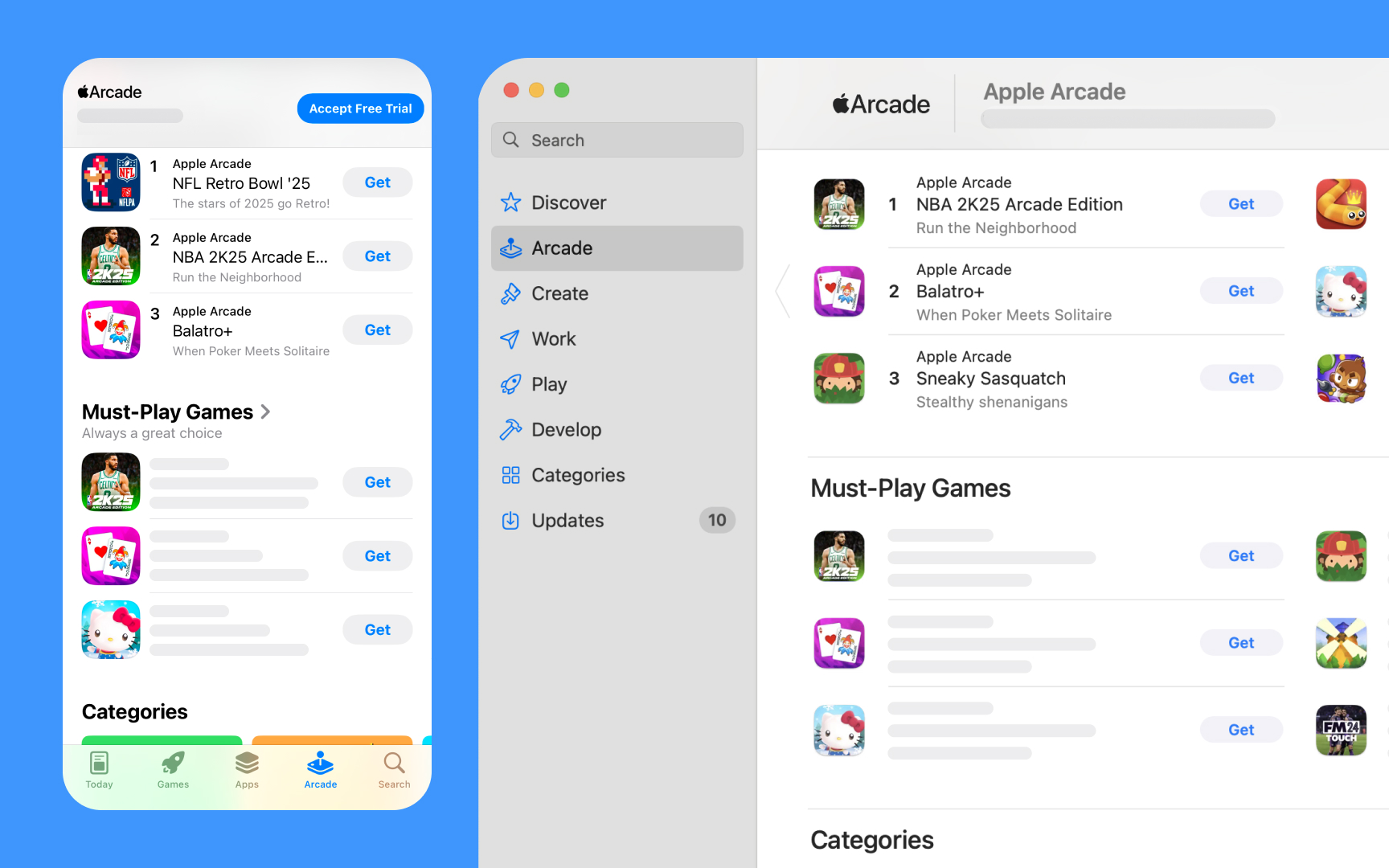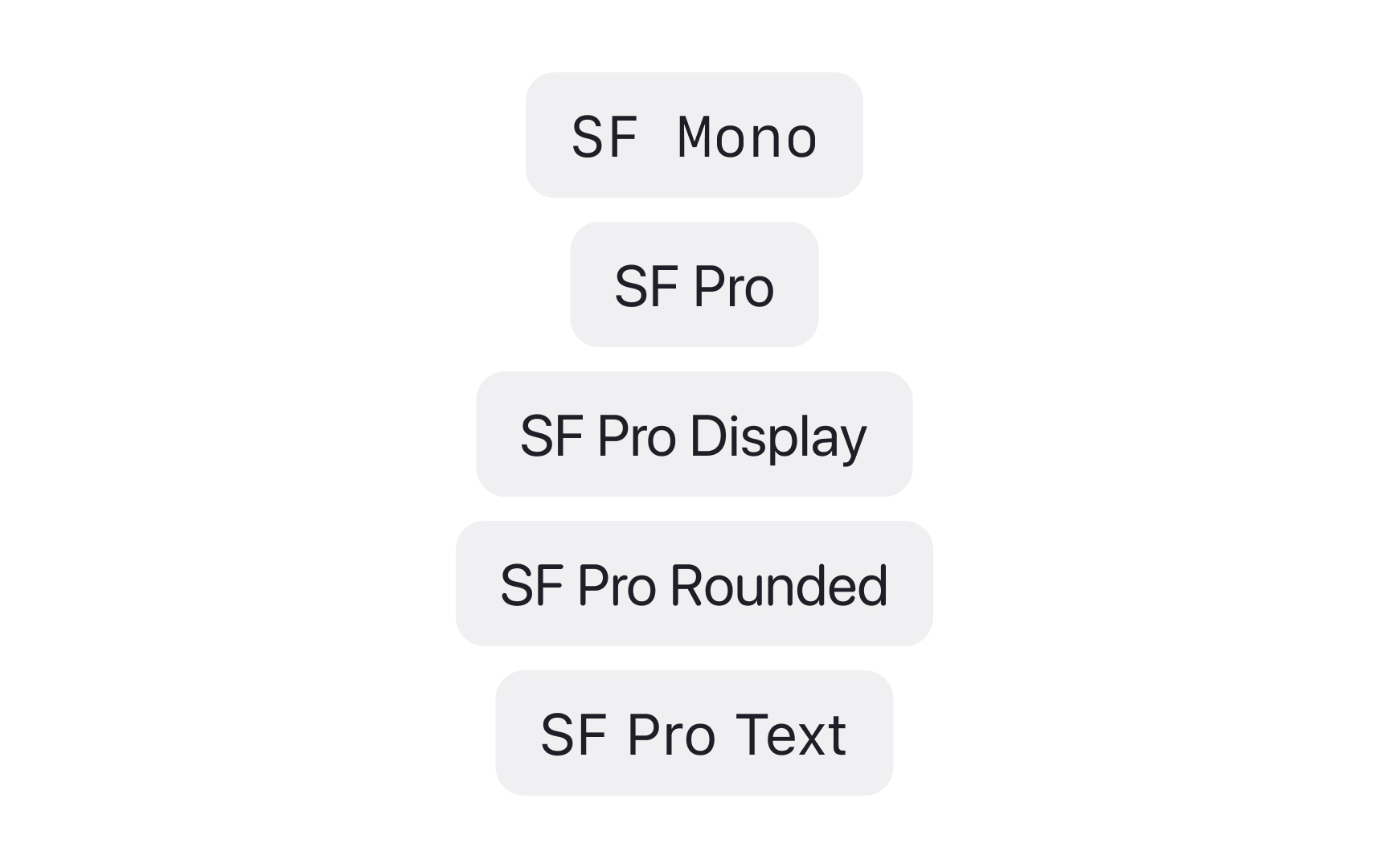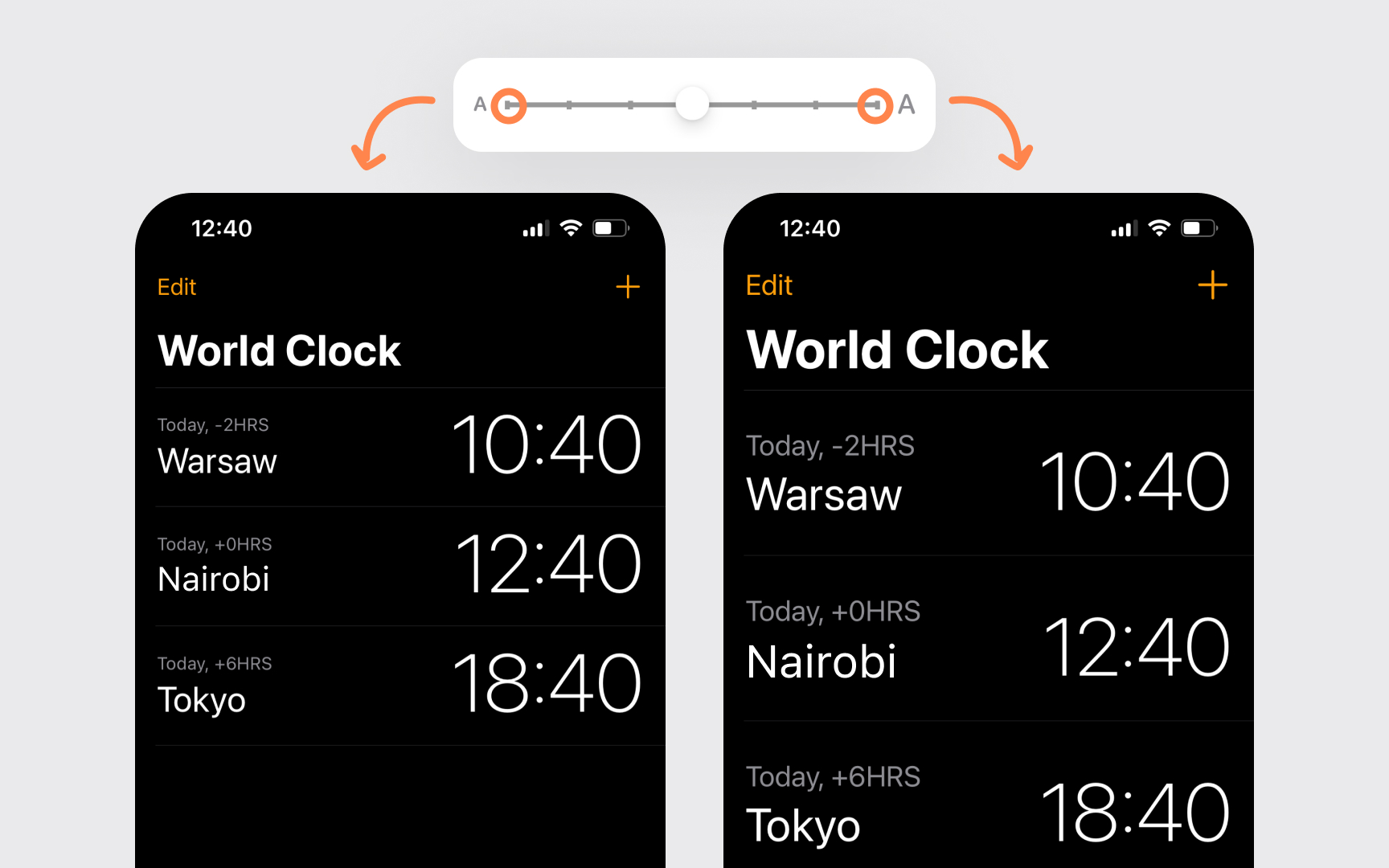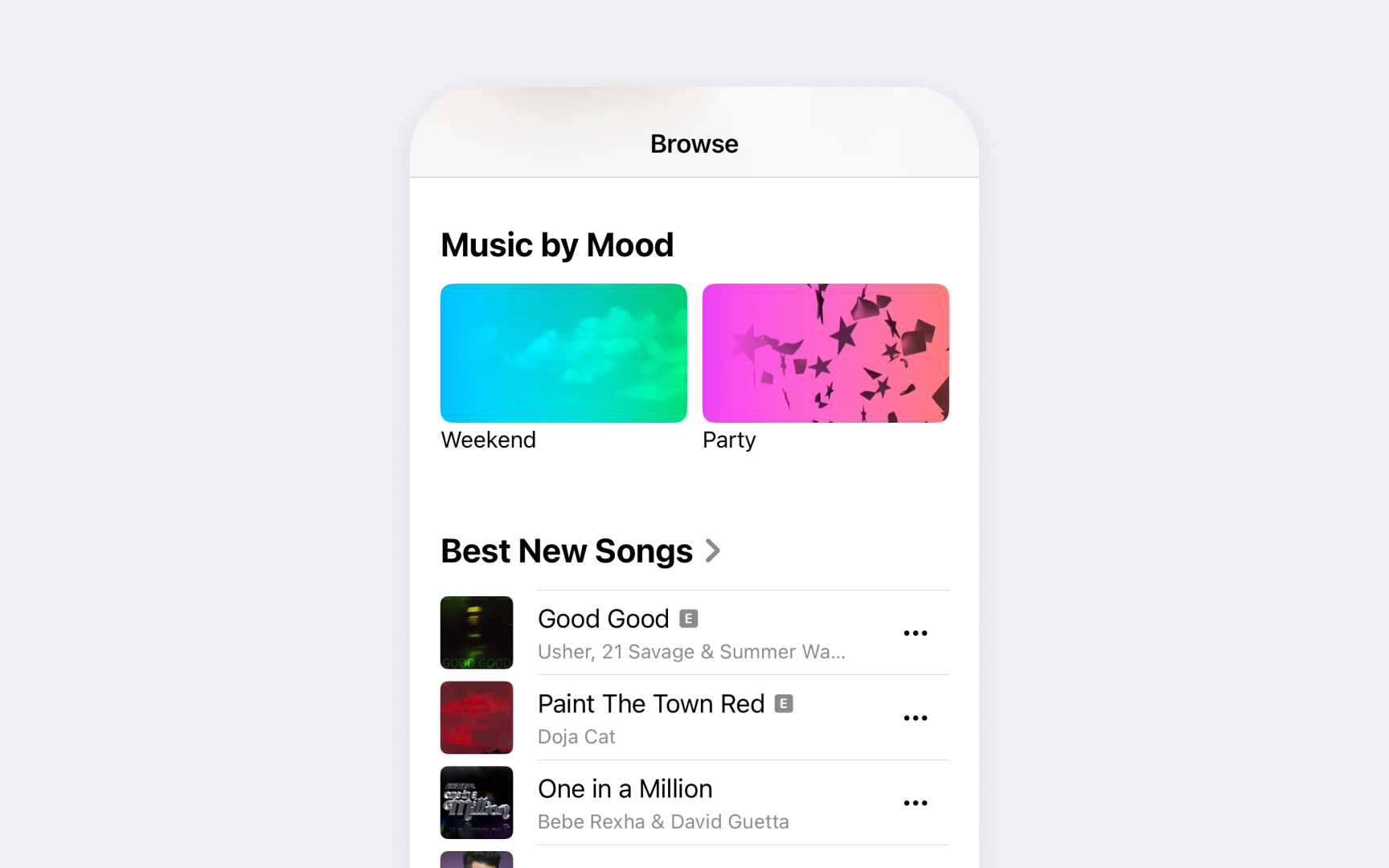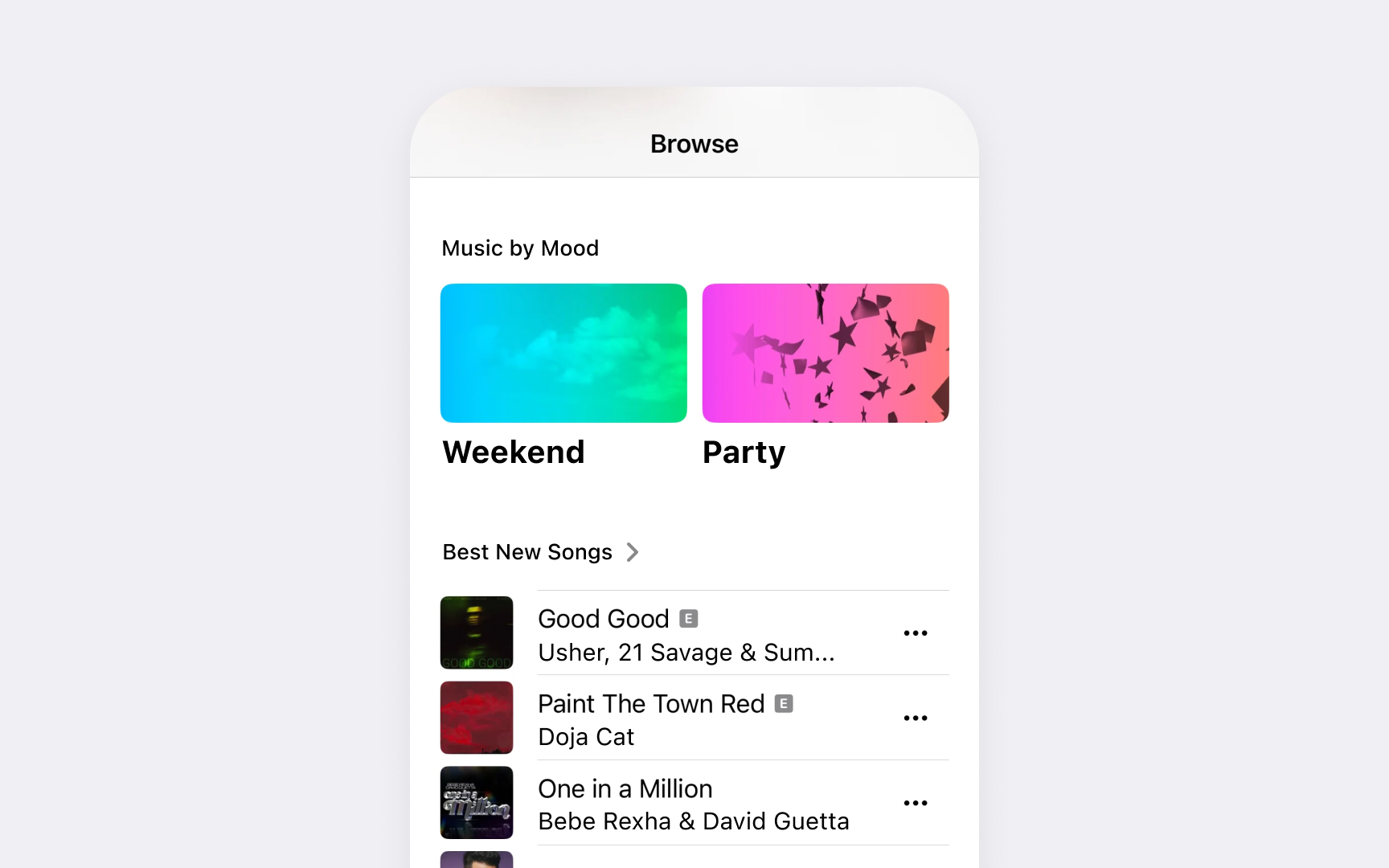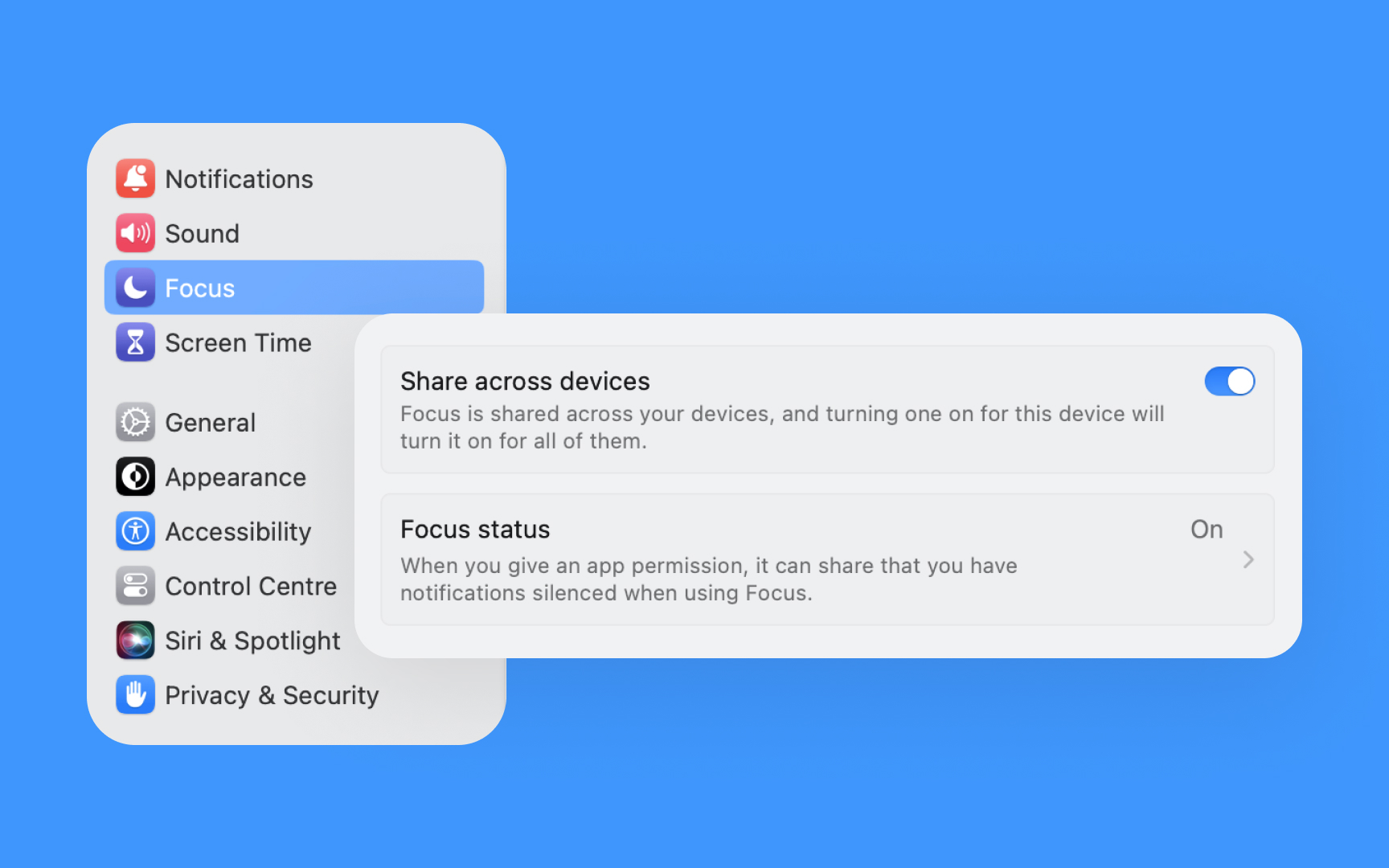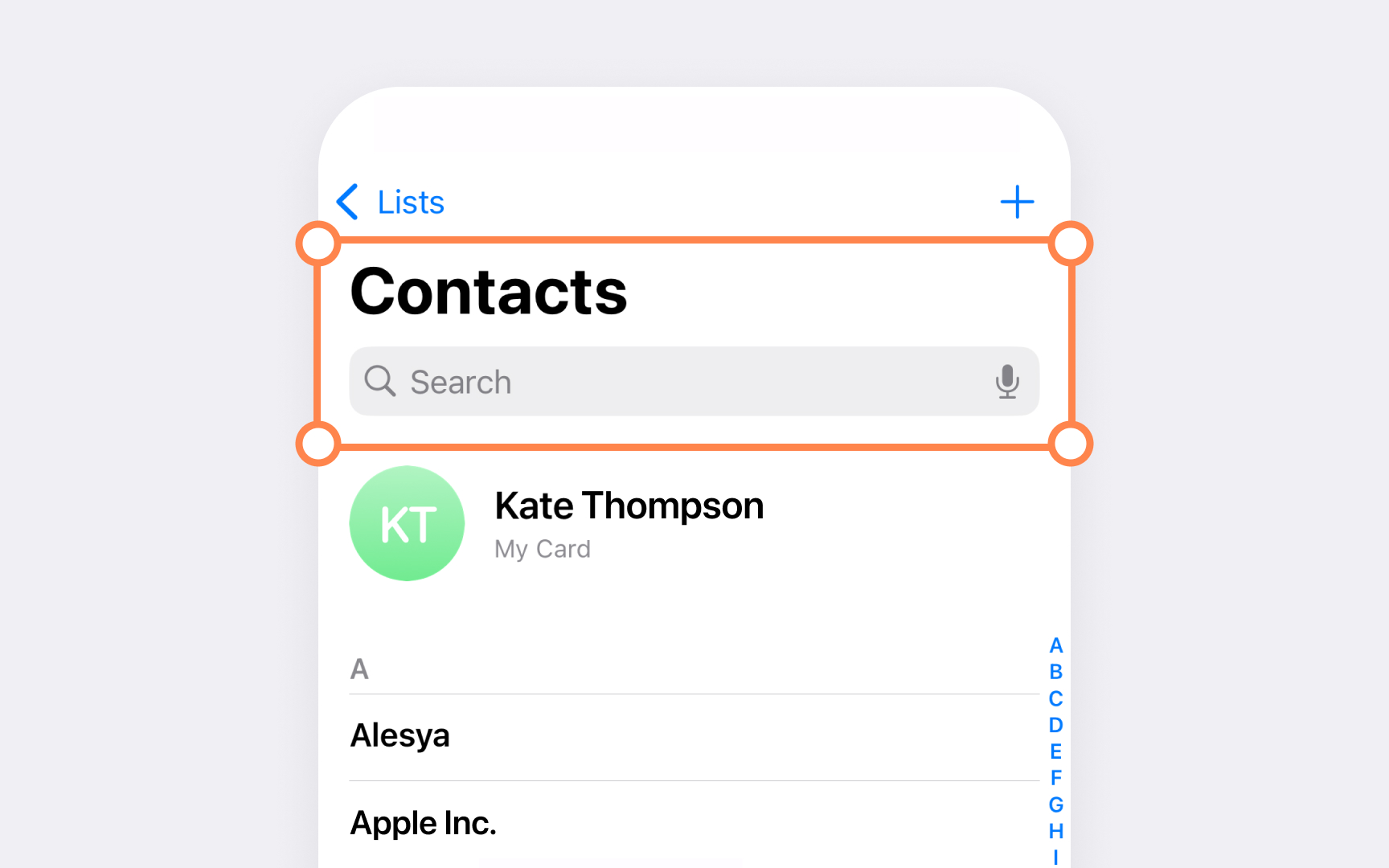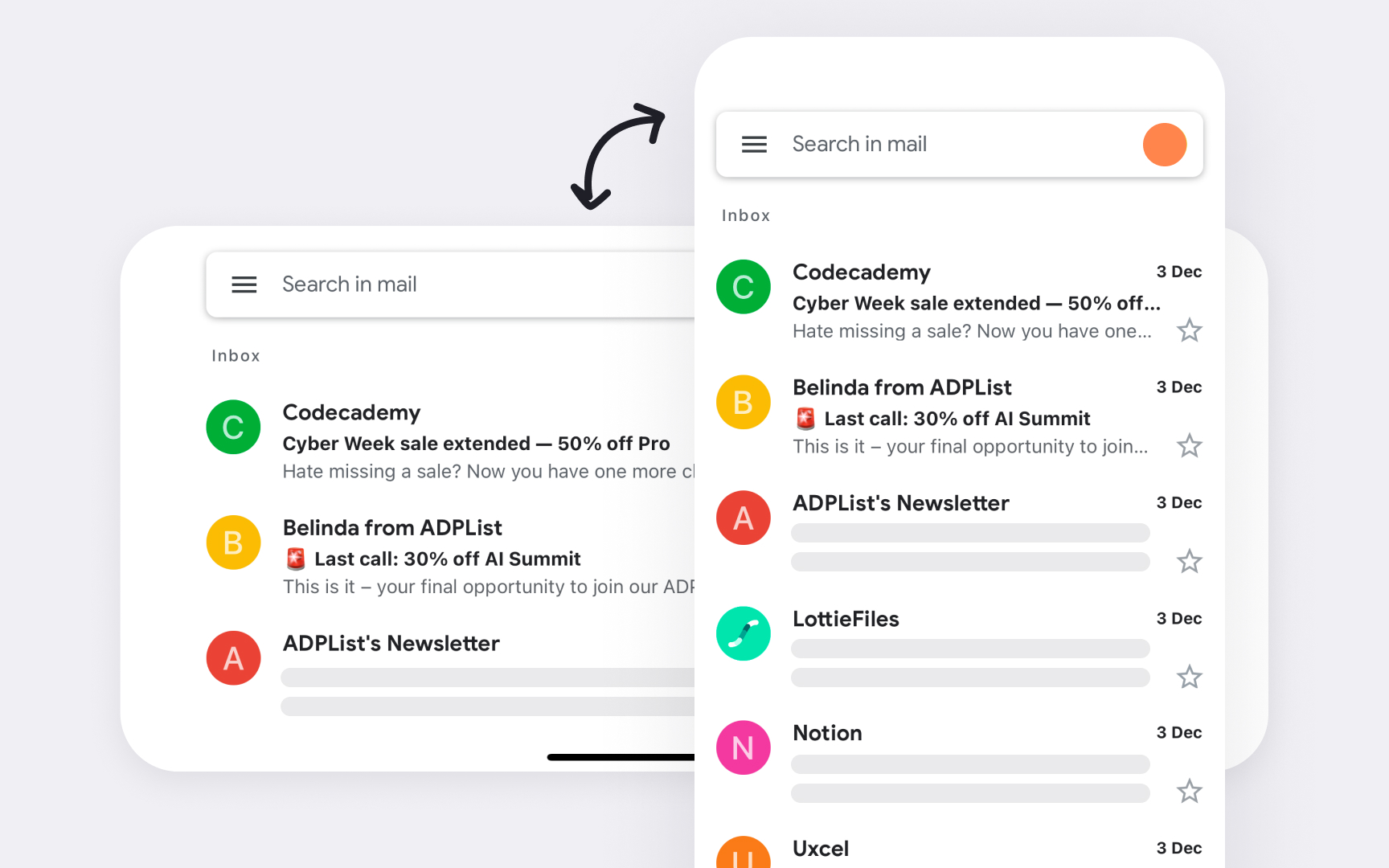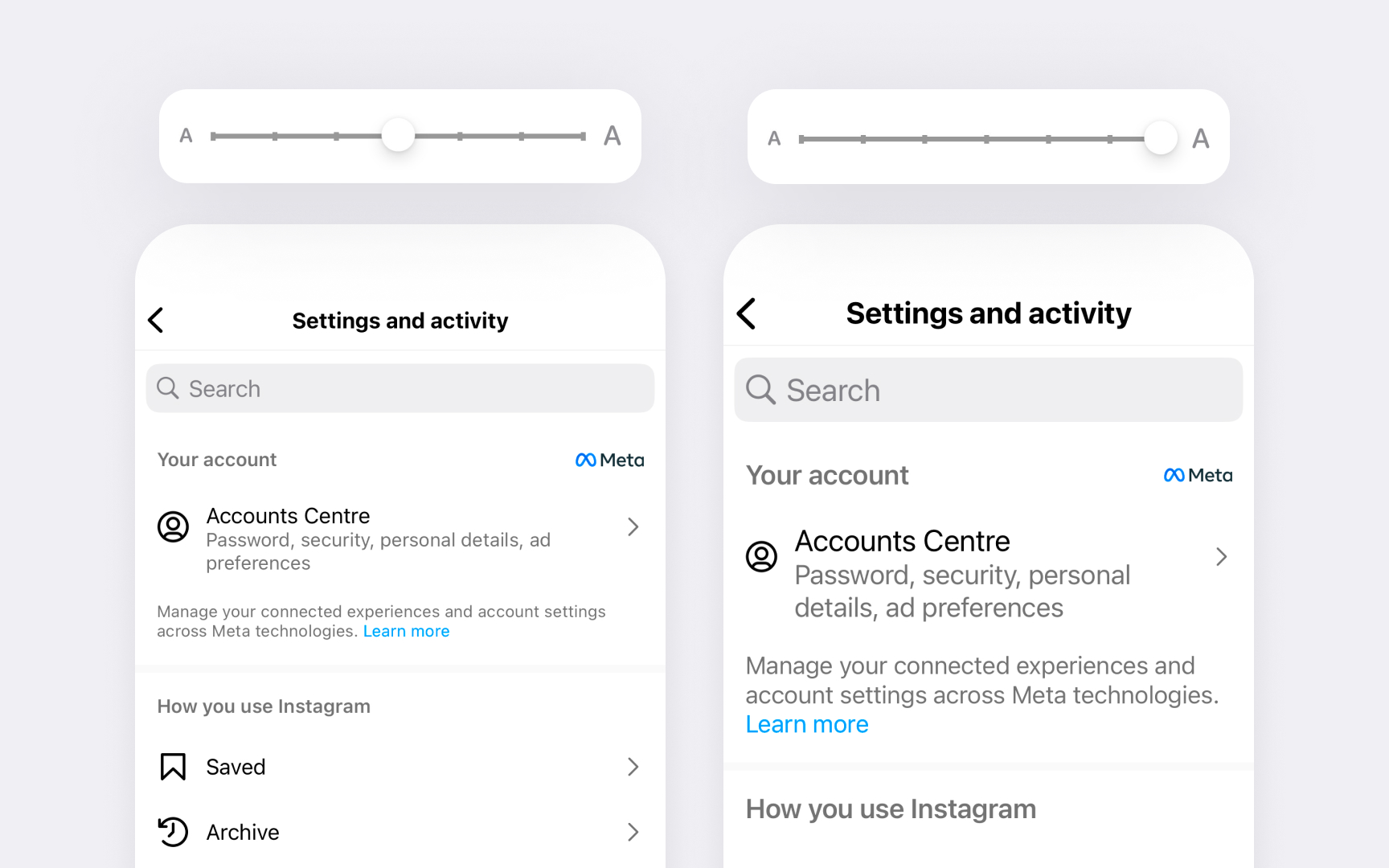
Typography defines the reading experience in Apple interfaces. The San Francisco (SF) font family stands at the center of this experience, bringing more to the table than just good looks. Watch SF fonts at work: they shift their forms to stay readable on an Apple Watch screen, create natural rhythm in apps, and look sharp on large displays. The system takes care of complex typography details on its own, from letter spacing to thickness changes. While each SF font has its own distinct feel, they all speak the same visual language across different interfaces.
Understanding SF typography means having the right tools to guide attention and create clear structure in their work. It helps make smart choices about text size relationships, font weights, and spacing that feel natural in Apple's ecosystem. Knowing when to use specific SF fonts helps emphasize the right information and keep text easy to read. This knowledge helps turn complex content into clear, organized interfaces. SF typography shows how careful attention to small details creates better digital experiences that feel distinctly Apple.
SF font basics
The San Francisco (SF) font family powers text display across Apple platforms — from watchOS to macOS. Each font in this family adapts to different screen sizes while maintaining Apple's signature look and excellent readability.
Each platform has its own set of built-in text styles. For iOS and iPadOS, body text defaults to 14pt Regular, while macOS uses 13pt Regular. Text styles range from large titles (31pt in iOS/iPadOS, 26pt in macOS) down to small captions (11pt in iOS/iPadOS, 10pt in macOS).
Text spacing in SF fonts changes automatically based on size. The tracking values adapt precisely: text at 12pt has no tracking adjustment, smaller sizes get positive tracking for better readability, while 13-20pt sizes receive negative tracking for tighter headlines.
SF fonts include built-in features that improve text display:
- Rounded corners become slightly sharper at small sizes
- Letter shapes adjust to stay clear and readable
- Numbers align perfectly in tables and data
- Punctuation marks adjust their position based on surrounding characters[1]
Font variations
SF fonts include distinct variants designed for different uses. SF Pro serves as the main interface font, while SF Pro Rounded offers a softer look for specific UI moments. SF Mono provides fixed-width characters perfect for code and data display.
Each variant comes with 9 weights from Ultralight to Black. This range helps create contrast and hierarchy without switching font families. The weights work consistently across all SF variants, maintaining visual harmony throughout interfaces.
SF Compact adapts the standard SF design for smaller displays. Its condensed letterforms and tighter spacing help fit more content on watch faces and compact UI elements. SF Pro Display and SF Pro Text optimize letter shapes for different size ranges.
Key attributes of SF variants:
- SF Pro balances neutrality with personality
- SF Compact preserves legibility in tight spaces
- SF Mono aligns numbers and code perfectly
- SF Rounded softens UI without losing clarity
Pro Tip! When mixing SF variants, maintain consistent weights across them. If body text uses Regular weight, use Regular for monospaced code snippets too.
Dynamic sizing
Dynamic Type adjusts text size across Apple interfaces based on users' preferences. This system ensures comfortable reading without breaking layout harmony — from the default size to larger accessibility options.
iOS and iPadOS offer seven standard text sizes and five larger accessibility sizes. This size spectrum ranges from xSmall to xxxLarge in standard sizes and continues through AX1 to AX5 for accessibility needs. Body text, for example, scales from 14pt at default to 28pt at AX1.
Dynamic Type affects entire interfaces systematically. When users change their preferred text size:
- Titles and body text scale proportionally
- Line height adjusts to maintain readability
- Spacing between UI elements adapts automatically
- All text styles maintain their relative hierarchy
Most importantly, Dynamic Type preserves the relationship between different text styles. Headlines stay prominent, captions remain smaller than body text, and the overall visual hierarchy stays intact at any size.[2]
Pro Tip! Test layouts with both minimum and maximum Dynamic Type sizes to ensure your interface stays readable and usable at all sizes.
Type hierarchy
SF fonts create a clear visual hierarchy through a system of predefined text styles. Each style serves a specific purpose — from prominent Large Title (31pt in iOS) to subtle Caption 2 (11pt).
The content structure becomes clear through consistent style application:
- Large Title marks main sections and primary screens
- Headlines (14pt Semibold) introduce content areas
- Body text (14pt Regular) delivers the core information
- Captions (11pt) provide supporting details
The built-in spacing between styles helps content breathe naturally. iOS body text gets 19pt leading while headlines maintain the same line height despite their bolder weight. This consistent approach to spacing reinforces hierarchy while maintaining rhythm.
Apple platforms provide carefully calibrated styles that work together. Instead of creating custom sizes, using these predefined styles ensures consistent vertical rhythm and helps users recognize familiar patterns across apps.
Pro Tip! When introducing hierarchy, start with system styles before considering custom sizes — they're designed to work together seamlessly.
Optical sizing
SF fonts automatically adjust their design as size changes. At smaller sizes, letters become slightly wider with more open shapes and looser spacing. Larger sizes get more condensed forms with tighter fit and sharper details.
Two optical size families handle different ranges:
- SF Pro Text optimizes shapes for sizes 19pt and below
- SF Pro Display refines details for 20pt and above
Automatic optical sizing shows in action across interfaces. Compare how SF appears in different contexts:
- Crisp small labels in the Control Center
- Sharp app names on the Home Screen
- Clean body text in Messages
- Bold headlines in the News app
The system handles these adjustments seamlessly. Rounded corners become more pronounced at display sizes, while text sizes maintain clear shapes and consistent stroke contrast. This helps maintain legibility without manual tweaking.
Spacing rules
SF fonts use automatic tracking — the space between letters changes based on text size. This system creates optimal spacing without manual adjustments from designers.
The tracking system follows a precise pattern:
- 12pt text has 0 tracking as a baseline
- 10pt text gets +12 tracking (1/1000 em)
- 13pt text receives -6 tracking
- 17pt text uses -26 tracking
- 28pt text returns to +14 tracking
These adjustments happen automatically in Apple interfaces. For example, notice how footnotes at 10pt get more space between letters for better readability, while headlines at 17pt use tighter spacing to create stronger visual impact.
The tracking system works across SF variants. Whether using SF Pro in Mail or SF Compact on Apple Watch, text maintains proper spacing based on its size. This creates a consistent reading rhythm across all Apple platforms.
Navigation type
SF typography plays a vital role in navigation across Apple platforms. Each navigation element relies on specific text styles that help users scan and understand the interface structure.
Large Title (31pt in iOS) creates a clear hierarchy in navigation bars, especially when scrolling. As users scroll down, the title smoothly transitions to a more compact style without losing its prominence.
Navigation elements use consistent type styles:
- Back buttons and items: Body (17pt)
- Tab bar labels: Caption size
- Menu items: Body text
- Sidebar items: Regular weight for clear scanning
The system automatically handles text truncation and scaling in navigation. When interface elements need to adapt to different screen sizes or orientations, SF fonts maintain optimal legibility while preserving navigation hierarchy.
Responsive text
SF fonts maintain their quality across different screen sizes and orientations. Whether on a compact iPhone screen or an expansive iPad display, the type system ensures consistent readability and visual hierarchy.
The system handles text adjustments automatically:
- Margins adapt to screen width
- Line length stays comfortable for reading
- Text styles scale proportionally
- Spacing adjusts to maintain balance
Take the Messages app as an example. Notice how text behaves when switching between portrait and landscape:
- Message bubbles reflow naturally
- Input field text stays legible
- Timestamps maintain their style
- Contact names remain prominent
These automatic adjustments work across Apple platforms.
Type accessibility
Dynamic Type helps people pick the font size that works for them. When users adjust text size in settings, interfaces should remain readable and well-structured — from standard sizes to larger accessibility options.
Key accessibility considerations for SF typography:
- Prefer Regular to Bold weights — avoid Ultralight, Thin, and Light
- Maintain text hierarchy at all sizes
- Minimize text truncation in scrollable areas
- Consider adjusting layouts at large sizes to prevent crowding
- Ensure sufficient color contrast for text legibility
Notice how Twitter (X) app adapts to accessibility needs:
- Tweet text scales smoothly without truncation
- Username and handle stay clear but compact
- Action buttons remain easily tappable
- Media descriptions scale with content
- Timeline preserves readability at any size
Interface icons should scale alongside text. SF Symbols automatically adapt to accessibility text sizes, maintaining clear visual communication at any size.[3]
Custom font implementation
When implementing custom fonts in iOS apps, legibility and accessibility remain crucial. Custom typefaces must maintain readability across different viewing distances and conditions, following Apple's size specifications.
Airbnb's Cereal font demonstrates how custom typography can balance brand identity with usability. Its clean, geometric letterforms ensure legibility while maintaining brand character.
Custom fonts must support key accessibility features:
- Dynamic Type scaling
- Bold Text enhancement
- Sufficient contrast ratios
- Clear character distinction
- Text size adjustment options
Pro Tip! When designing a custom font, maintain consistent stroke contrast across weights to ensure readability at any size.
Typography pitfalls
Common typography mistakes can undermine interface clarity. Understanding these issues helps create more accessible and usable designs:
- Font weight selection. Avoid Ultralight, Thin, and Light font weights as they can be difficult to see. Prefer Regular, Medium, Semibold, or Bold weights for better visibility.
- Layout adjustments. When font size increases in constrained spaces, inline items can crowd text. Avoid keeping timestamps or icons inline with text at large sizes — consider stacking elements vertically.
- Text truncation. Minimize text truncation as font size increases. Especially in scrollable areas, ensure users can read complete content either directly or in a separate view.